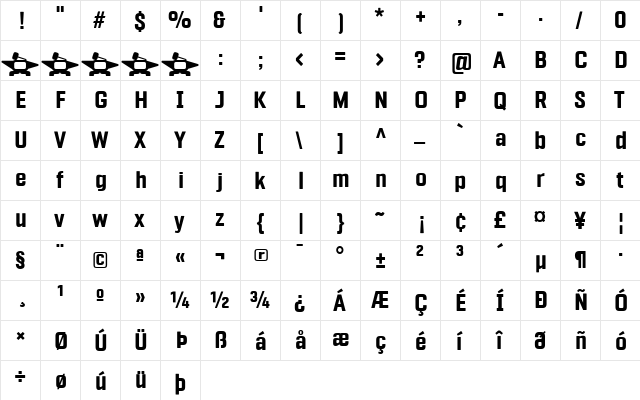
Fragua Bold Font Preview
Fragua Bold
Fragua Bold Font Details
| Foundry | deFharo |
| Designer | Fernando Haro |
Design Context for Fragua Typeface
Fragua offers clean, dependable letterforms without strong stylistic allegiance, making it a practical choice for designers who need flexibility. The heavy weight commands attention and anchors typographic hierarchies.